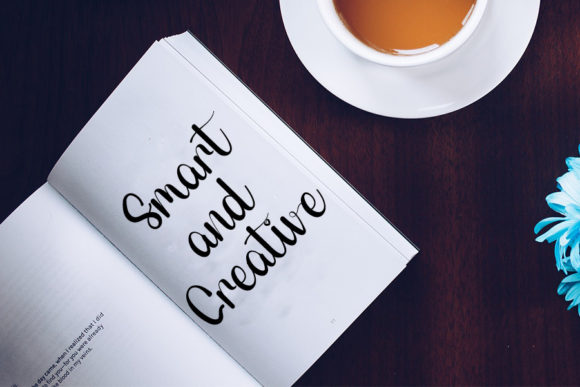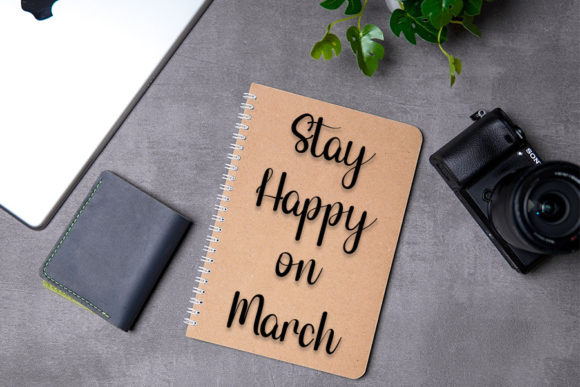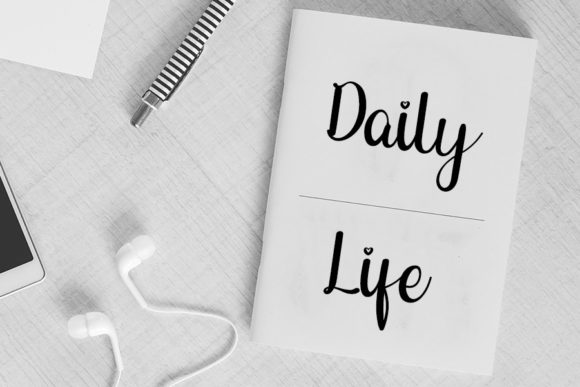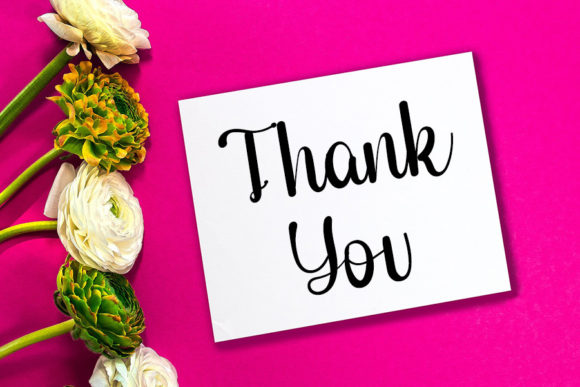
The Boho Rainbow Font: A Stylish and Bold Handwritten Delight
I’ll never forget the design project that led me to discover the Boho Rainbow font. I was working on a branding project for a trendy boutique, and I was struggling to find the perfect font to capture the essence of the brand. The client wanted something stylish, bold, and playful, but also elegant and sophisticated. After hours of searching, I stumbled upon Boho Rainbow, and it was love at first sight! 💕
Boho Rainbow is a stylish and bold handwritten font with a contemporary atmosphere and impeccable form, inspired by timeless classic calligraphy. It will look outstanding in a wide range of contexts, from branding and advertising to packaging and social media graphics.
- ✨ Stylish and bold handwritten design with a contemporary twist
- ✅ Impeccable form and elegant lines
- 💥 Highly versatile and suitable for a wide range of design projects
- 🎨 Beautifully crafted with attention to detail
While Boho Rainbow is an amazing font, there are a few things to keep in mind: 🤔
- ⚠️ Some characters may not work well in very small sizes, so it’s best to use it at larger sizes (20px and above)
- ⚠️ Limited language support, so it’s best to use it for English or similar languages
One of the best things about Boho Rainbow is its OpenType features and glyphs. With OpenType, you can access a range of alternative characters, ligatures, and stylistic sets to give your text a unique look. For example, you can use the stylistic alternates to create a more whimsical or playful feel, or use the ligatures to connect letters and create a more fluid design.
Boho Rainbow was inspired by the beauty of classic calligraphy and the elegance of handwritten scripts. The designer wanted to create a font that would capture the essence of timeless elegance while still feeling modern and fresh. With Boho Rainbow, you get the best of both worlds: a stylish and bold handwritten font that’s perfect for a wide range of design projects.
Q: What is the best way to use Boho Rainbow in my design projects?
A: Boho Rainbow is a versatile font that can be used in a wide range of design projects, from branding and advertising to packaging and social media graphics. Experiment with different sizes, colors, and styles to find the perfect look for your project!
Q: Is Boho Rainbow suitable for body text?
A: While Boho Rainbow is a beautiful font, it’s best suited for headlines, titles, and short paragraphs. For body text, you may want to choose a more legible font.